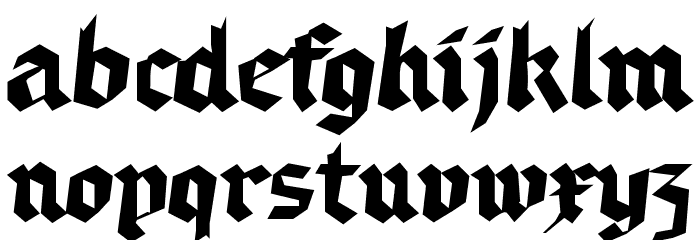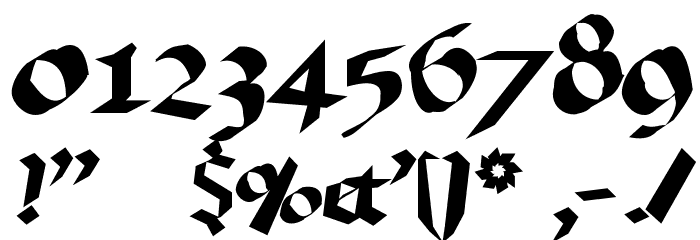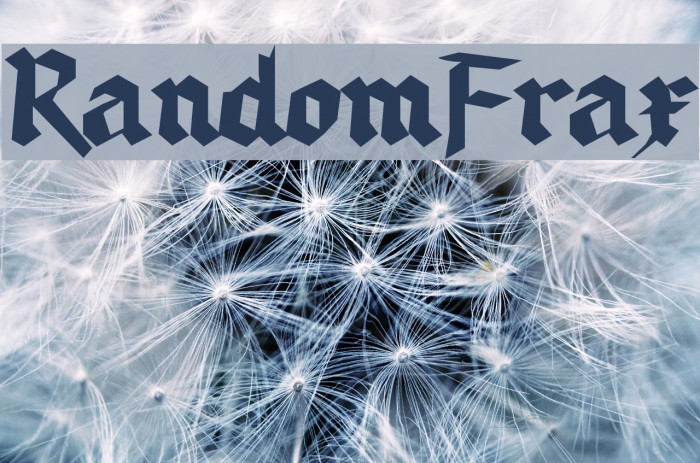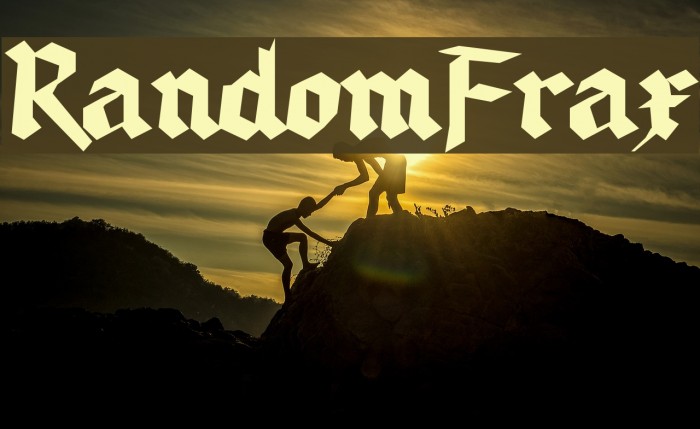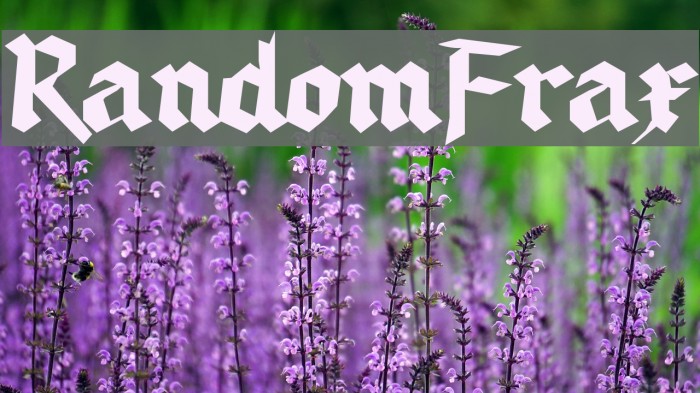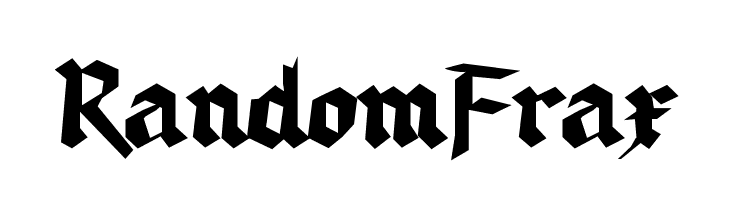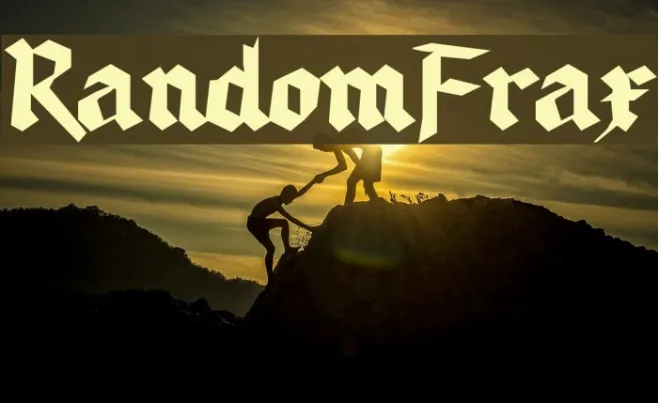
RandomFrax Font
This font exhibits a bold and striking Blackletter style, characterized by its sharp, angular forms and dramatic strokes. The uppercase letters are particularly ornate, with pointed serifs and intricate detailing that evoke a sense of historical elegance. The lowercase letters maintain this aesthetic, offering a cohesive and visually impactful appearance. The numerals and special characters are equally stylized, ensuring consistency across all elements. This font's high contrast between thick and thin strokes enhances its readability while maintaining its decorative appeal.
A bold, angular Blackletter font with high contrast and ornate detailing.
- Proposed Projects: Ideal for projects requiring a historical or gothic touch, such as book covers, posters, or branding for vintage-themed events.
- Category: Blackletter
- Overall Style: Vintage